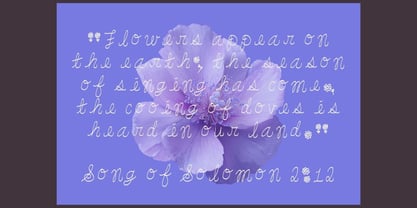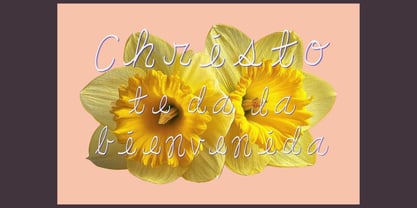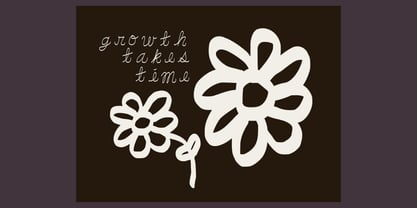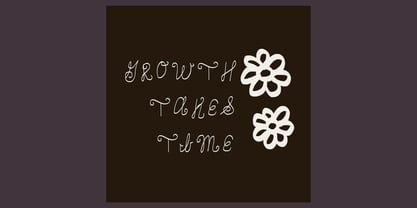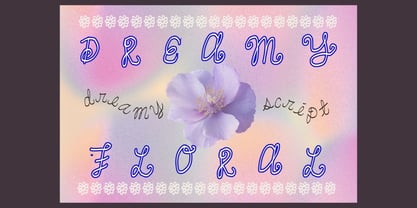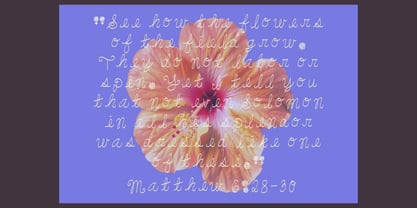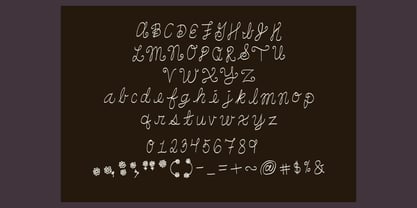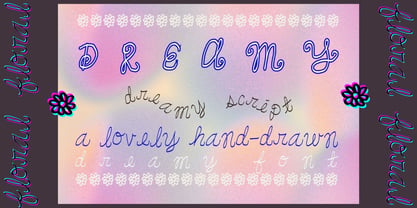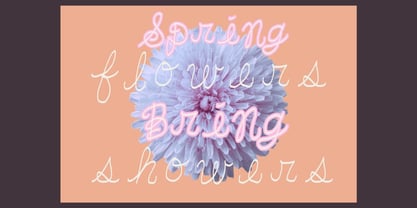
DreamyFont
by Eryn Rose Design
The DreamyFont Font Family was designed by Eryn Rose Tomlinson and published by Eryn Rose Design. DreamyFont contains 1 styles. More about this family
This timeless, folky font embodies the essence of spring with its delightful twirls, swirls, and floral illustrations, creating a charming girly aesthetic. Artful and whimsical, yet modern and contemporary, it seamlessly blends these styles. Enjoy using this versatile font for a variety of projects, including Folk Album Design, Wedding Invitations, unique branding, Children's Book Covers, Journal Prompts, or any fantastical endeavor you can imagine. As you create, you'll feel as though you're surrounded by a field of daisies, inspiring your artistic journey.
Designers: Eryn Rose Tomlinson
Foundry: Eryn Rose Design
Eryn Rose, a graduate of the Rhode Island School of Design, is a multifaceted artist specializing in illustration, graphic design, and type design. She skillfully blends modern and classic typography, leveraging her fine art and design expertise. Each piece of her typography is unique, ensuring that it cannot be replicated or found elsewhere. Eryn's typography is artfully crafted, infusing warmth into her designs that only a human touch can provide. Her work resonates across various industries, including editorial, tech, and retail, setting her apart in the competitive market with her signature style and design philosophy.